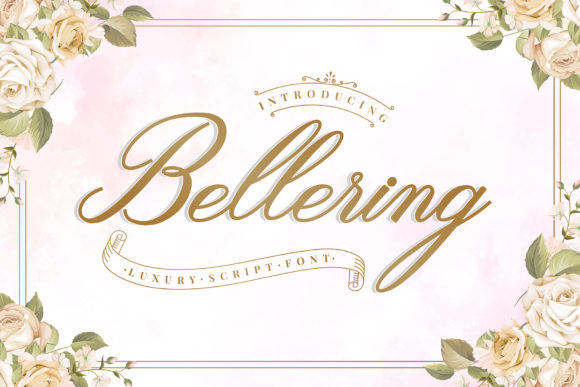
The Bellering Font: A Timeless Script for Creative Projects
I’ll never forget the frustration of working on a design project, hours spent searching for the perfect font, only to come up empty-handed. My client wanted a script font that exuded elegance and sophistication, but also had a unique twist. That’s when I stumbled upon the Bellering font, and it instantly became my go-to choice. In this article, I’ll share my experience with Bellering, its features, and how to make the most of it in your designs.
A Personal Review: What I Love About Bellering
Bellering is a script font that draws inspiration from classic typography, yet brings its own distinct style to the table. Here are some things I love about it:
• ✨ Elegant and sophisticated, perfect for headlines and titles
• ✅ Highly versatile, suitable for both large and small text sizes
• 💫 Unique style that sets it apart from other script fonts
• 📝 Excellent for blocks of text with varying font sizes
While Bellering is an excellent font, it’s not without its quirks:
• 🤔 Some users may find the font a bit too ornate for certain projects
• ⚠️ Limited use of uppercase letters, which can be a consideration for certain designs
A Practical Guide: Using Bellering in Your Designs
Bellering was designed with the intention of creating a unique script font that pays homage to classic typography. The designer aimed to craft a font that would be both elegant and sophisticated, yet distinctive and eye-catching. The result is a font that’s perfect for creative projects that require a touch of refinement and personality.
What is the best use for Bellering? Bellering is ideal for headlines, titles, and blocks of text that require a touch of elegance and sophistication.
Is Bellering suitable for body text? While Bellering can be used for body text, it’s recommended for larger text sizes, such as headlines and titles.
Is Bellering available in multiple languages? Bellering may not support all languages, but it does include a range of glyphs and characters for multilingual support.